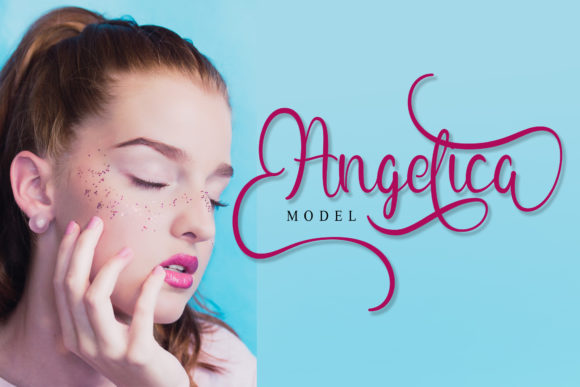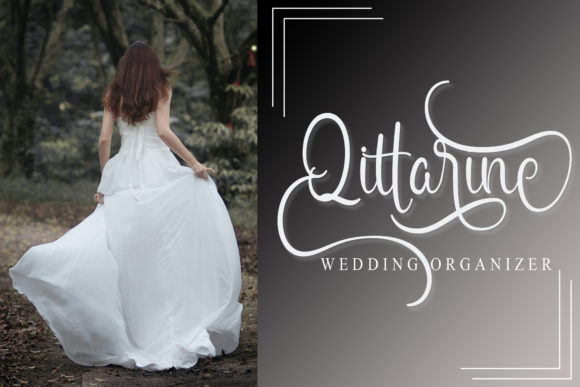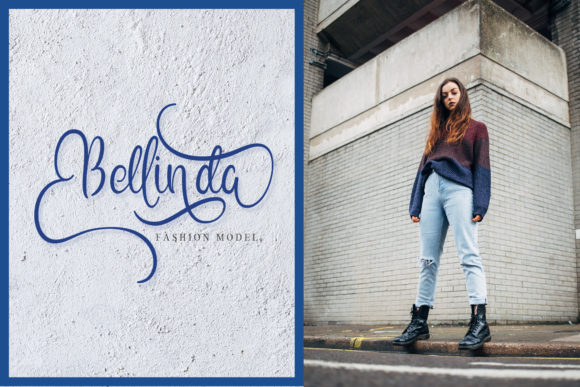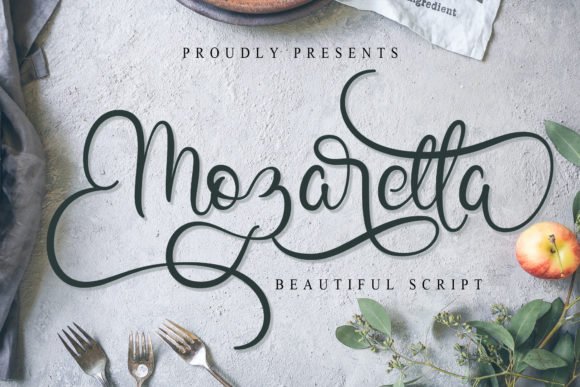
Introduction to Mozarella Font
Mozarella feels equally charming and elegant.
This stunning handwritten font is a stylish homage to classic calligraphy It features a varying baseline, smooth lines, gorgeous glyphs and stunning alternates.